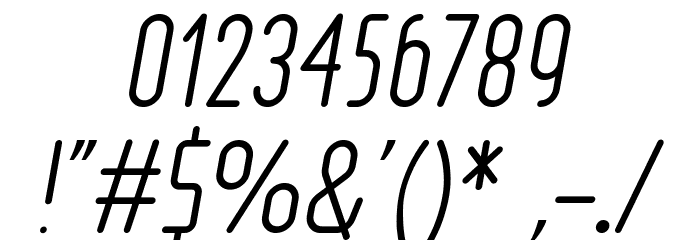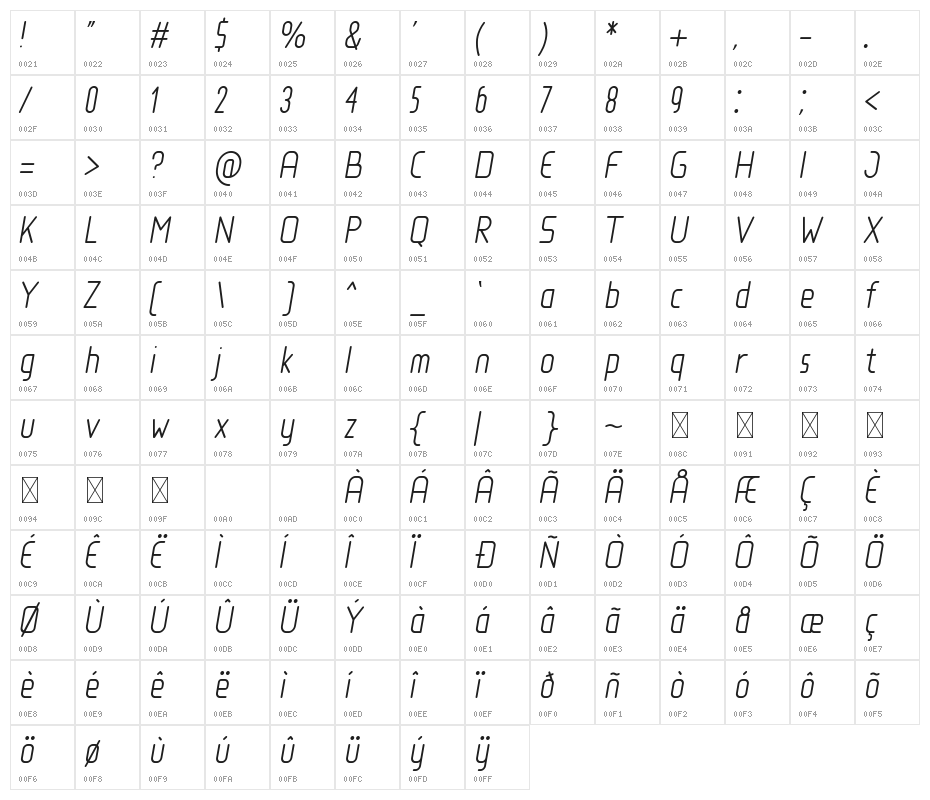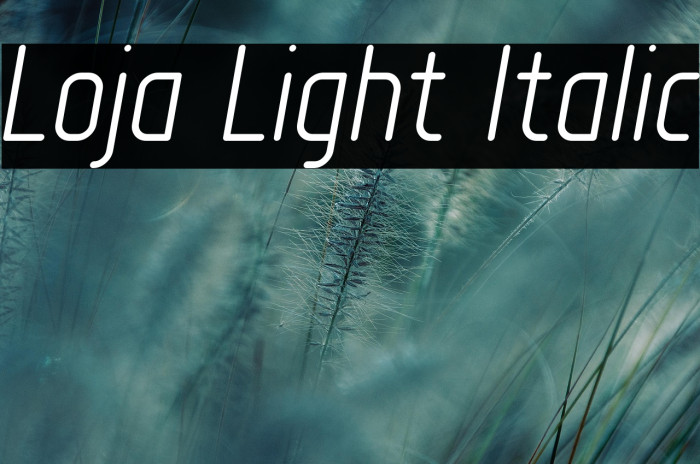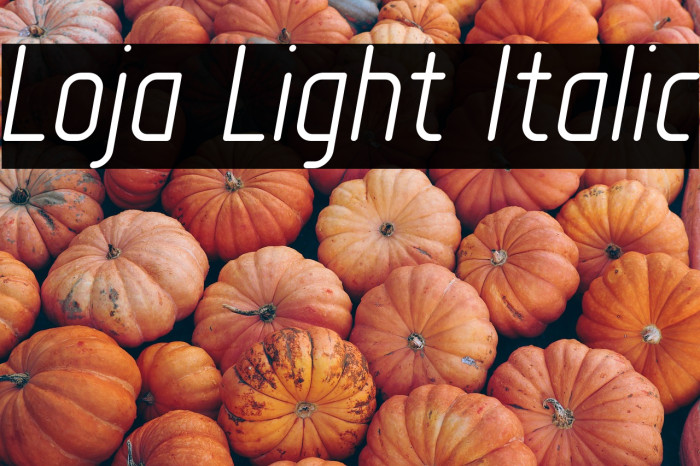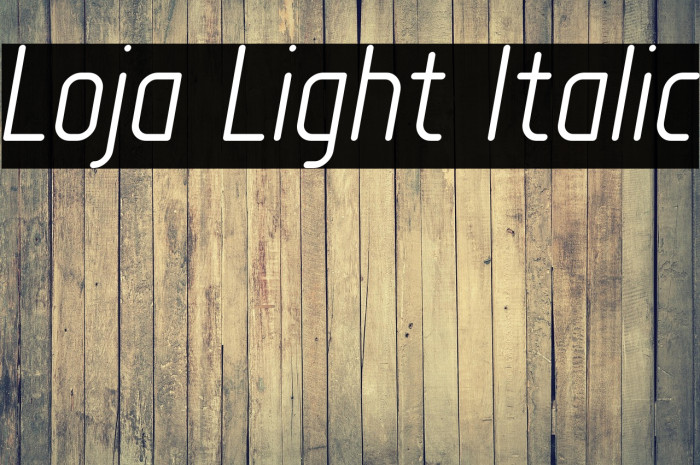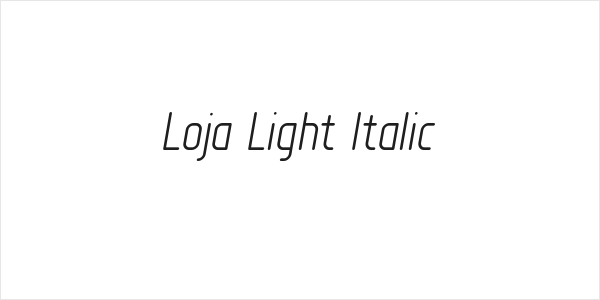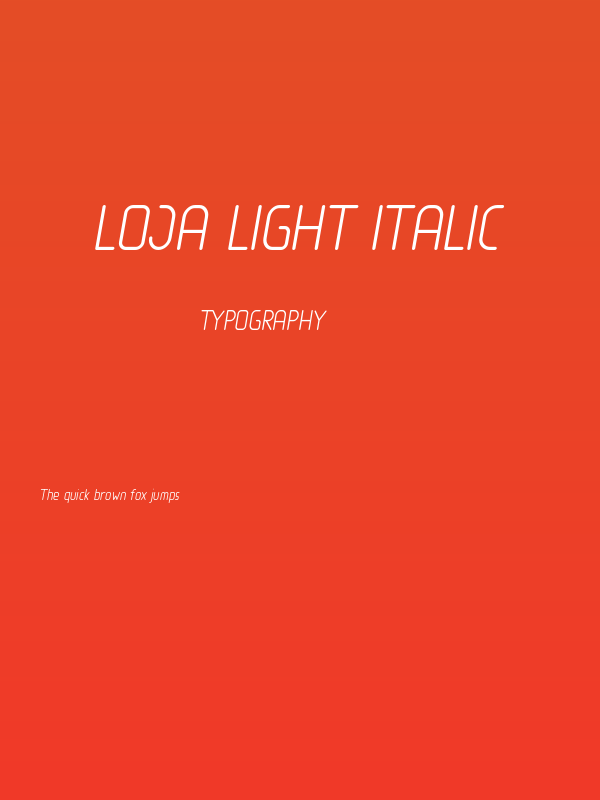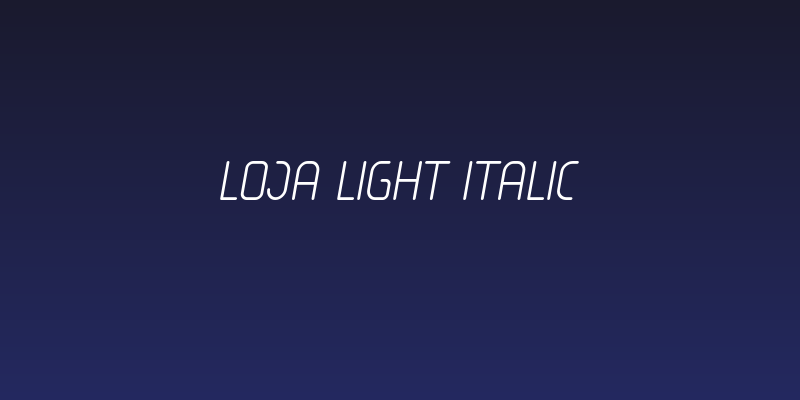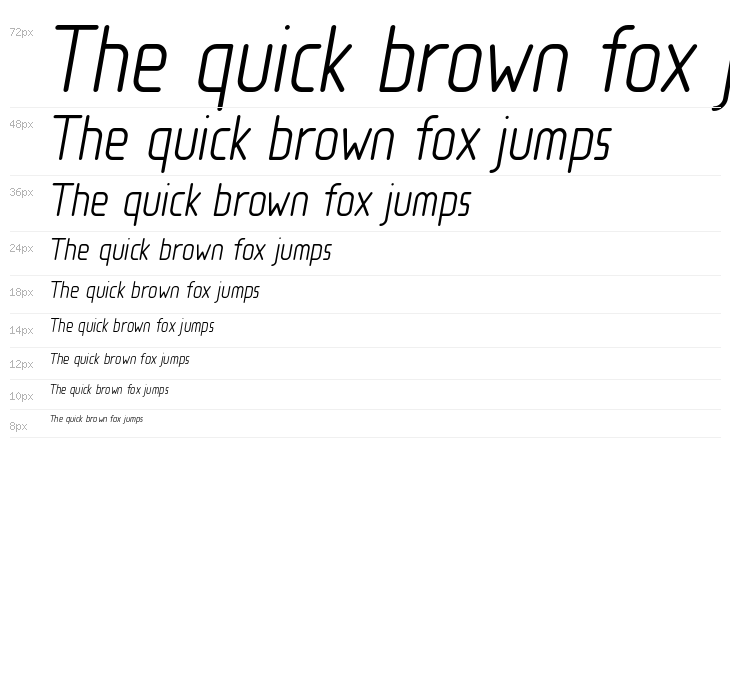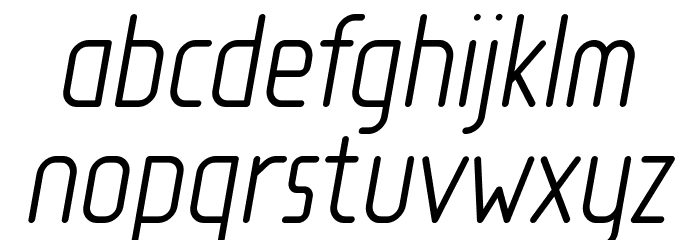
Loja Light Italic Font
Loja Light Italic Description
This font features a sleek and modern design with a distinct italic slant, giving it a dynamic and forward-moving appearance. The characters are crafted with a light weight, providing an airy and open feel. The strokes are consistent in thickness, contributing to a clean and uniform look. The font's geometric structure is evident in the precise curves and angles, making it suitable for contemporary design projects. The character spacing is normal, ensuring readability while maintaining a stylish aesthetic. This font is versatile and can be used in various contexts where a modern and elegant touch is desired.
| Proposed Projects | Ideal for branding, advertising, digital interfaces, and editorial design. |